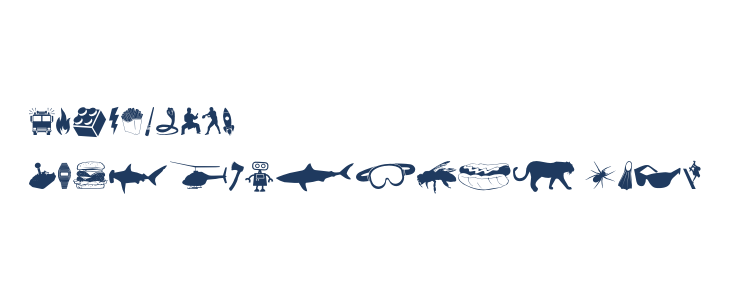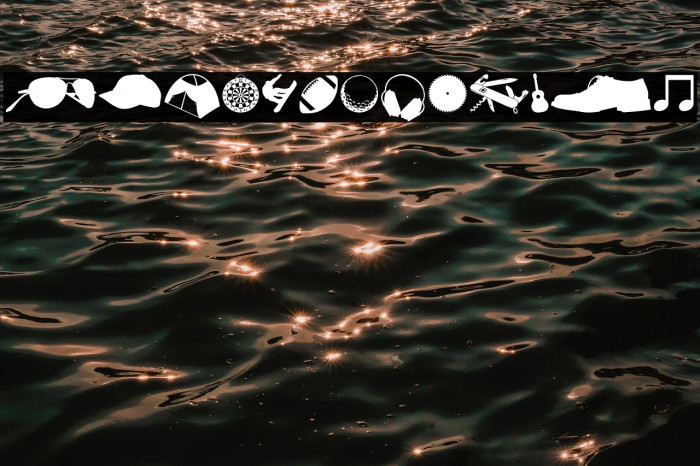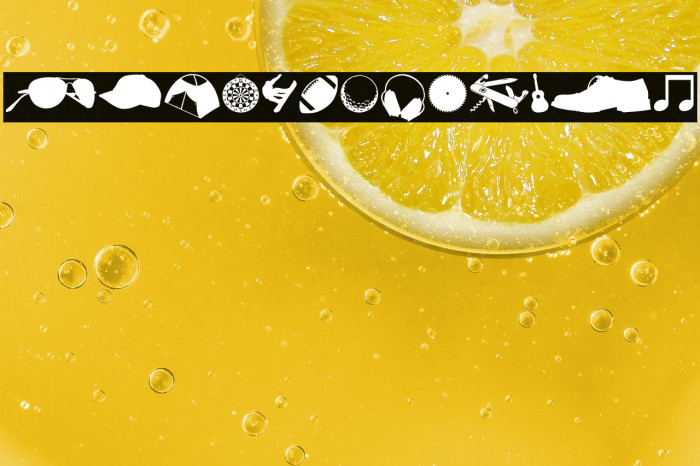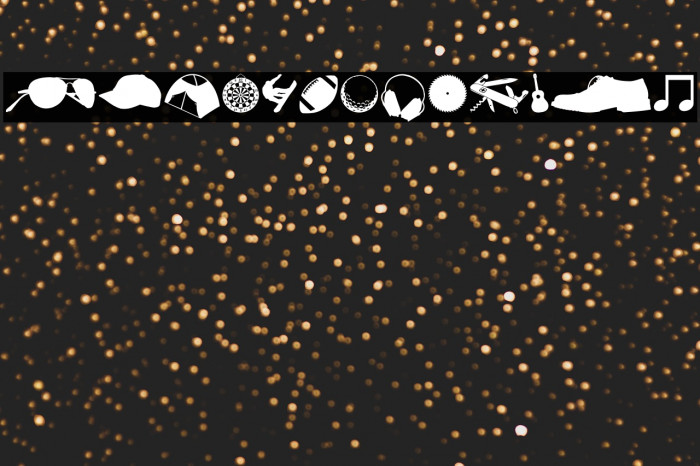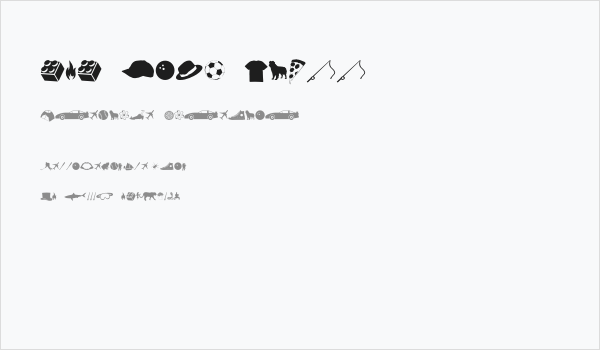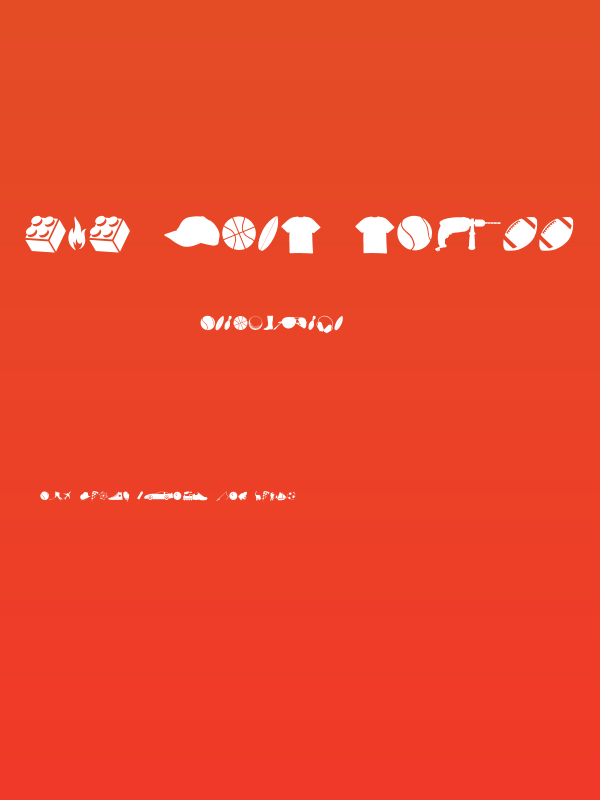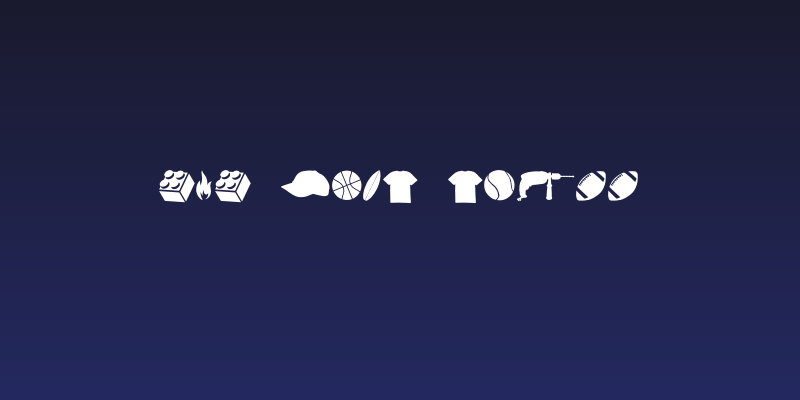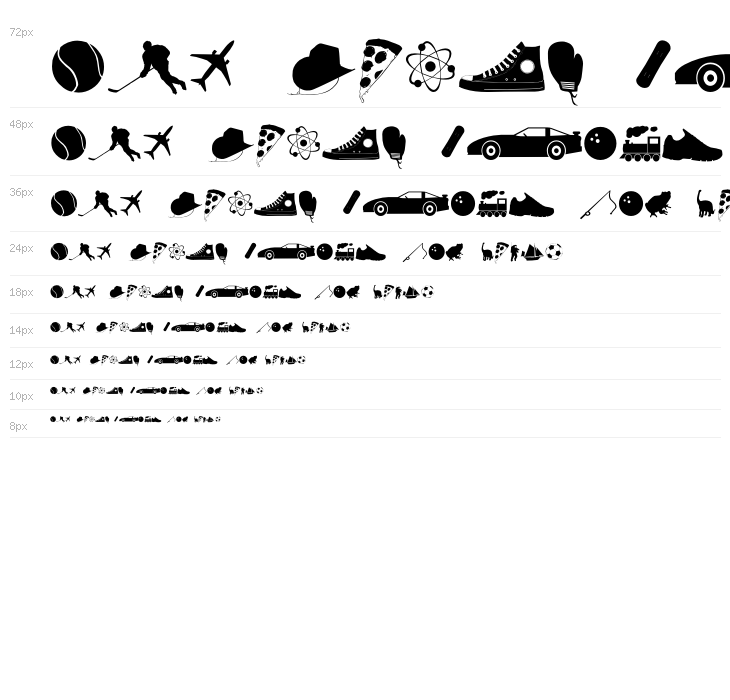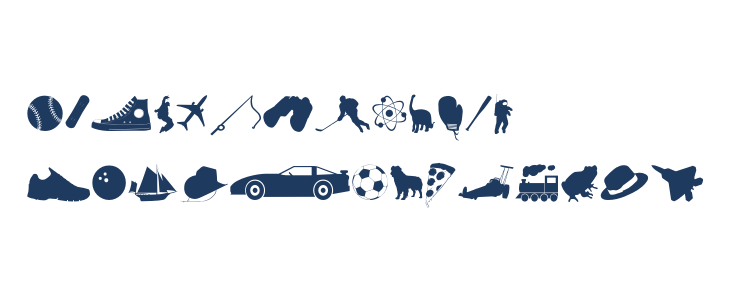
212 Boys Stuff Font
212 Boys Stuff Description
A playful, icon-based decorative font featuring bold, solid black silhouettes of various objects, sports equipment, animals, vehicles, and activities, each representing a different character. The glyphs are highly pictorial and lack traditional letterforms, focusing on recognizable shapes for visual storytelling.
| Overall Style | Playful, Decorative, Thematic |
| Use Case | Icons, Themed graphics, Visual storytelling, Educational design |
| Proposed Projects | Children's books, educational materials, posters, infographics, themed party invitations, playful branding. |